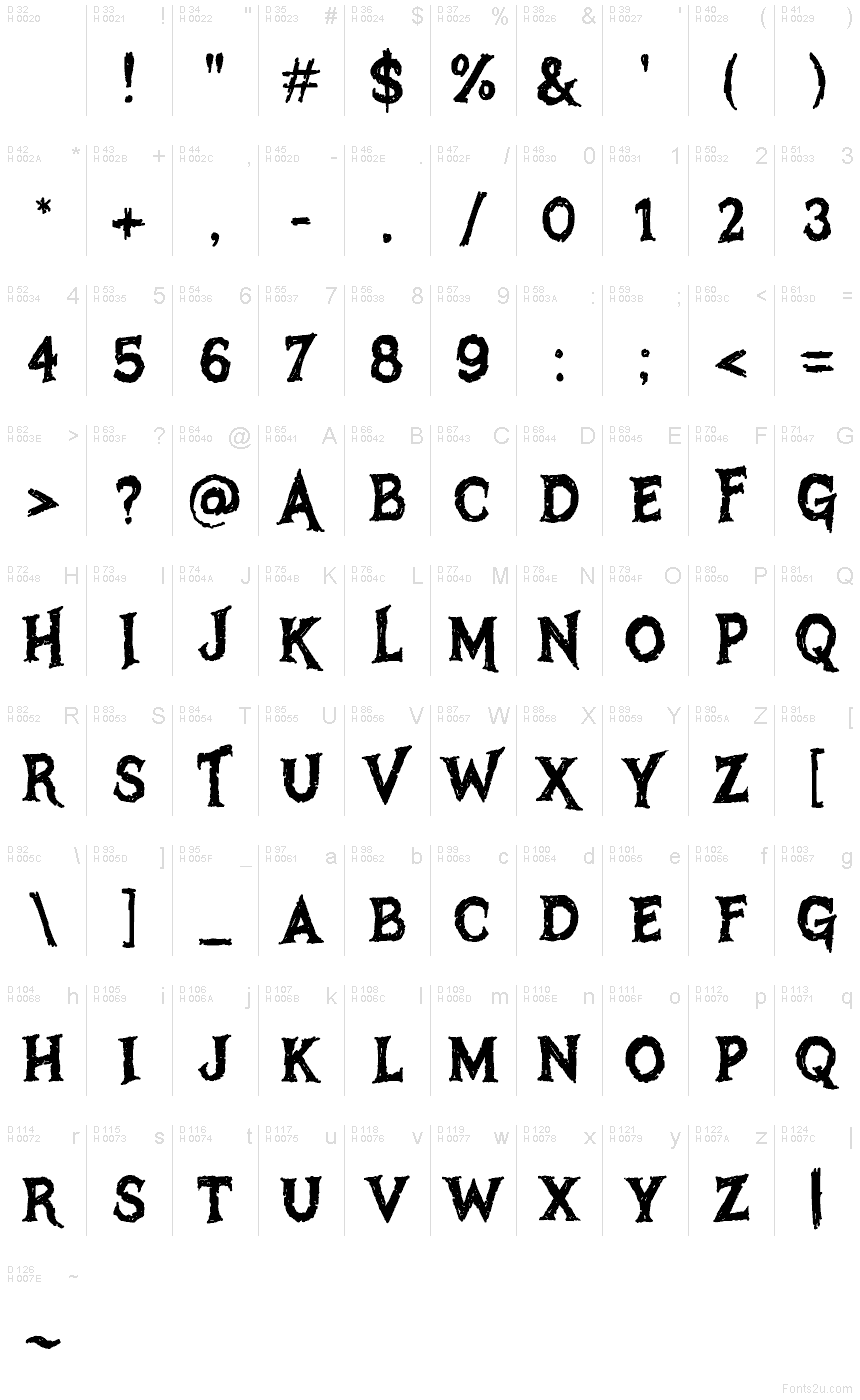
Swinging Wake
Swinging Wake font by Sinister Fonts is a free scary display font. Built for dread on demand, it drips with splintered edges, thorny spikes, and inky clumps that feel torn from a weathered headstone. Its jittery rhythm and ragged texture pull the eye at large sizes, delivering instant haunted‑house energy without extra graphics.
Using Swinging Wake, headlines jump off haunted house posters, Halloween party invites, horror movie titles, escape-room branding, spooky podcast covers, and goth band merch. This free font shines when you give it space to breathe and crank the size; pair it with a clean condensed sans for body copy to amplify the menace while keeping everything readable.
Swinging Wake Font by Chad Savage. Created 2024, hand-lettered.